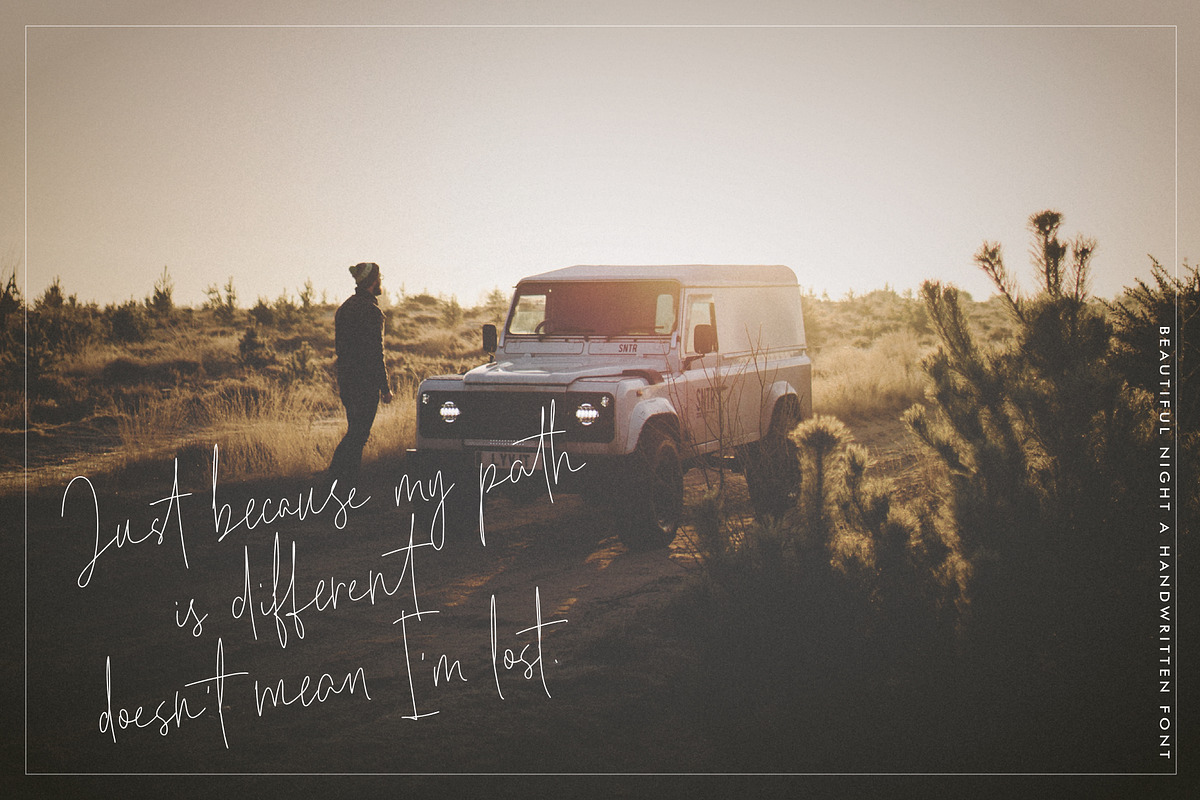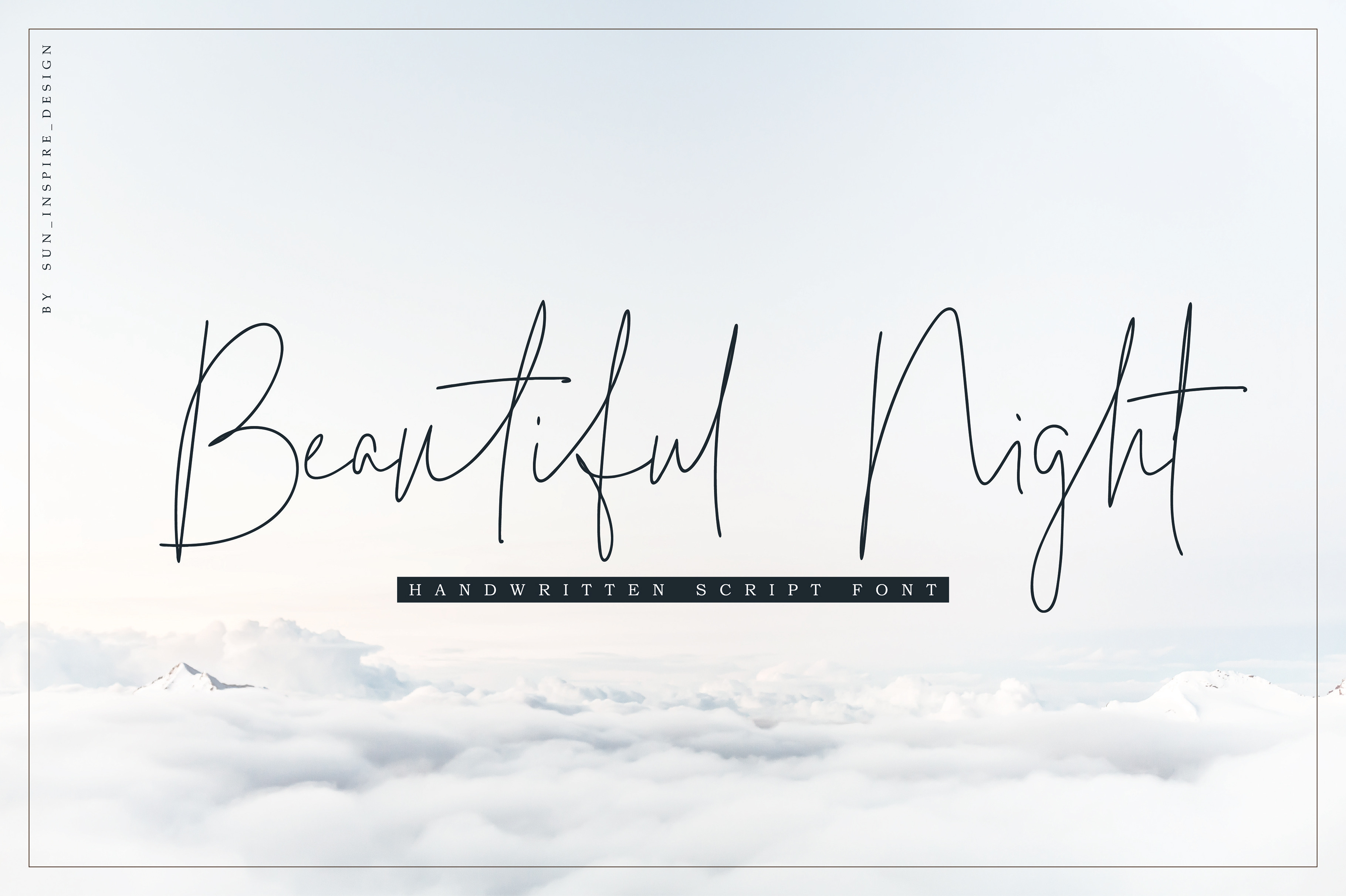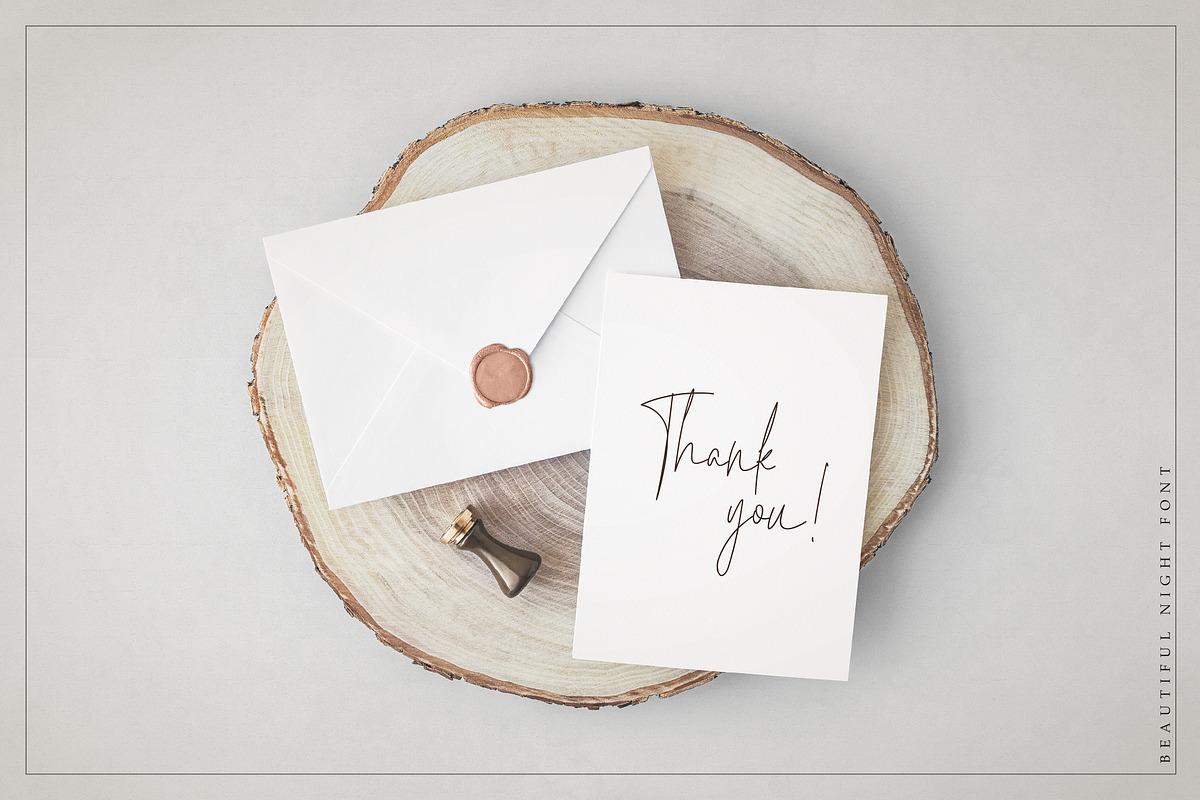
Beautiful Night Script Font
Beautiful Night is handwritten font with smooth lines and casual style. It have natural modern look that will give you text a personal, custom-made feel. This font will look good on various design projects - magazines, blog posts, social media, business cards etc.
- a full set of upper & lowercase characters;
- a full set of alternate upper & lowercase characters;
- numerals and punctuation;
- 11 standart & 60 unique ligatures.